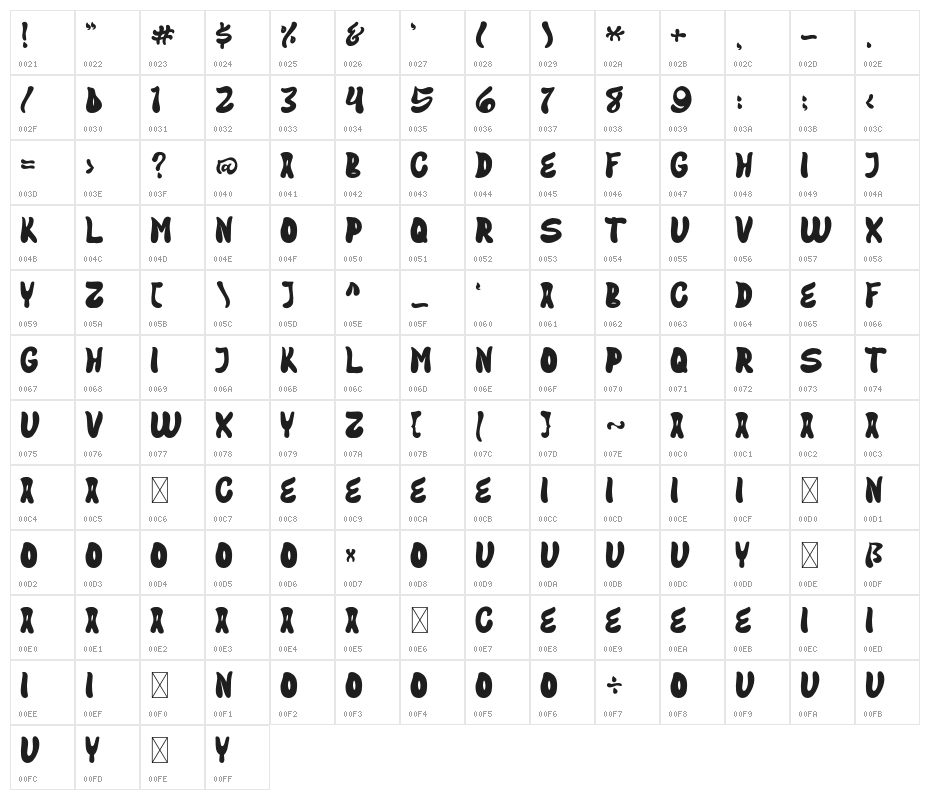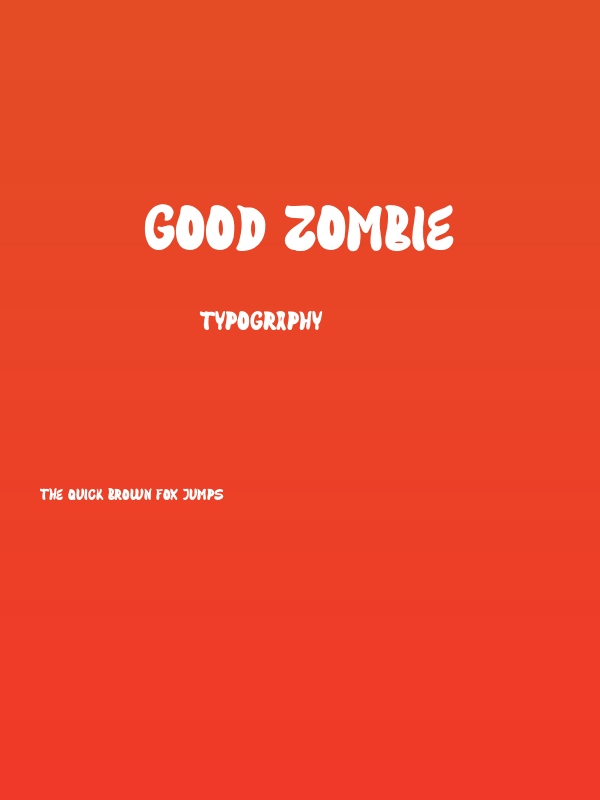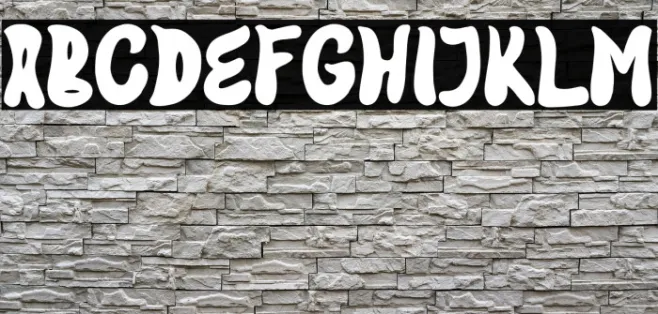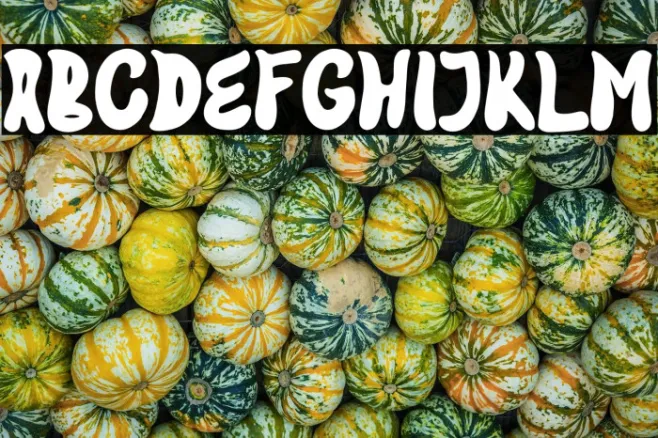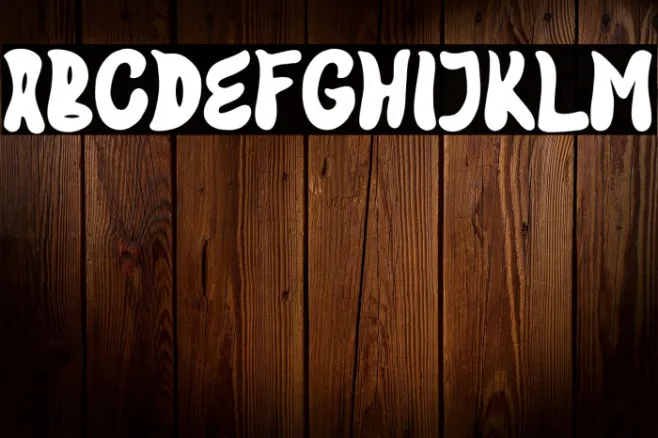
Good Zombie Font
Good Zombie Description
This font features a bold and playful design with thick, rounded strokes that give it a lively and energetic appearance. The characters are slightly irregular, adding a whimsical and informal touch. The uppercase and lowercase letters maintain a consistent style, with the lowercase being slightly smaller in size but equally bold. The numbers and special characters follow the same playful aesthetic, making the font suitable for creative and fun projects. The overall look is reminiscent of hand-drawn or cartoonish styles, making it ideal for eye-catching designs.
| Proposed Projects | Great for children's books, comic strips, playful branding, and party invitations. |